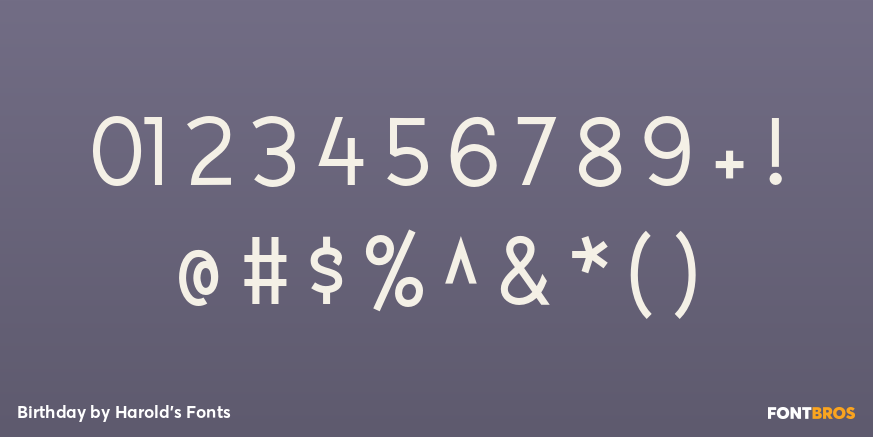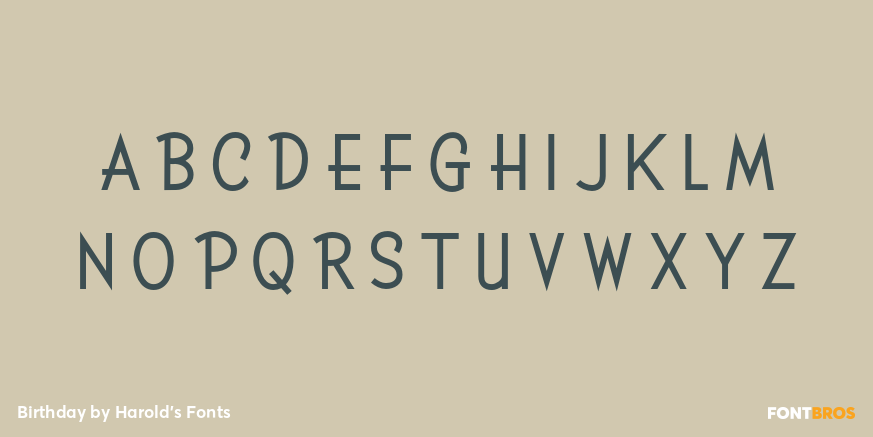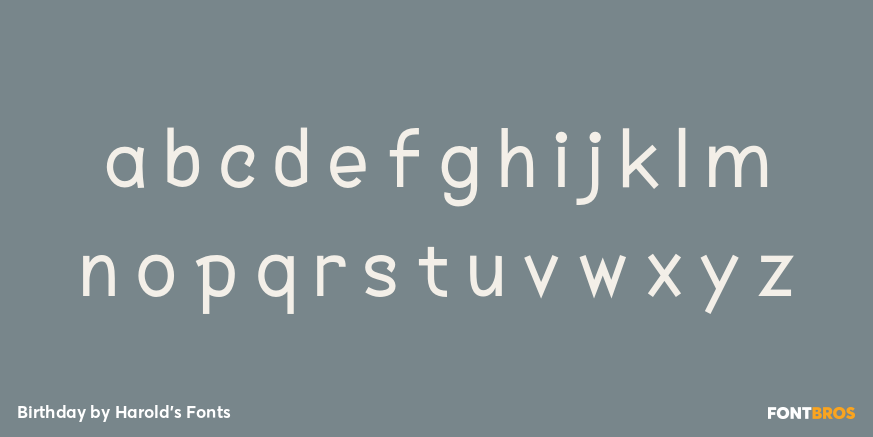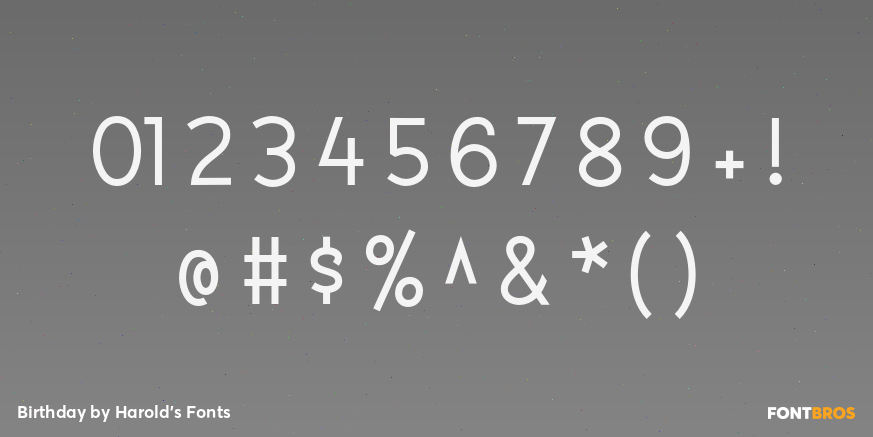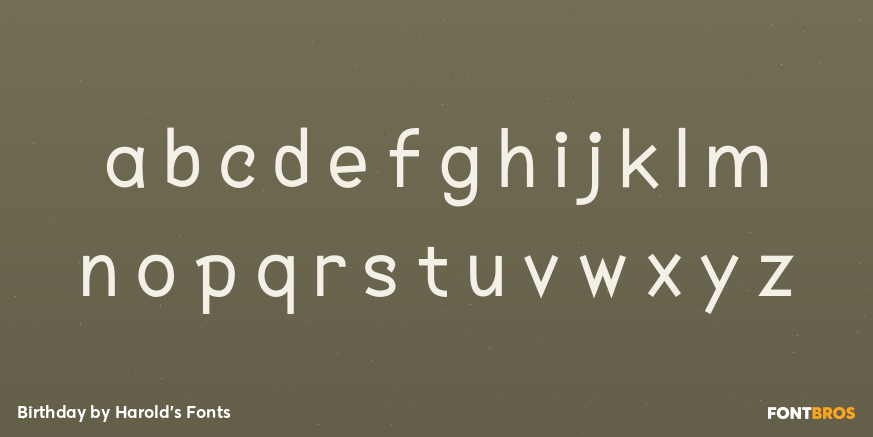
Birthday
Font Family by Harold's Fonts
BIRTHDAY is a bright and lively sans serif. There are three widths, Narrow, Regular, and Wide, and each is available with a large and small caps option.